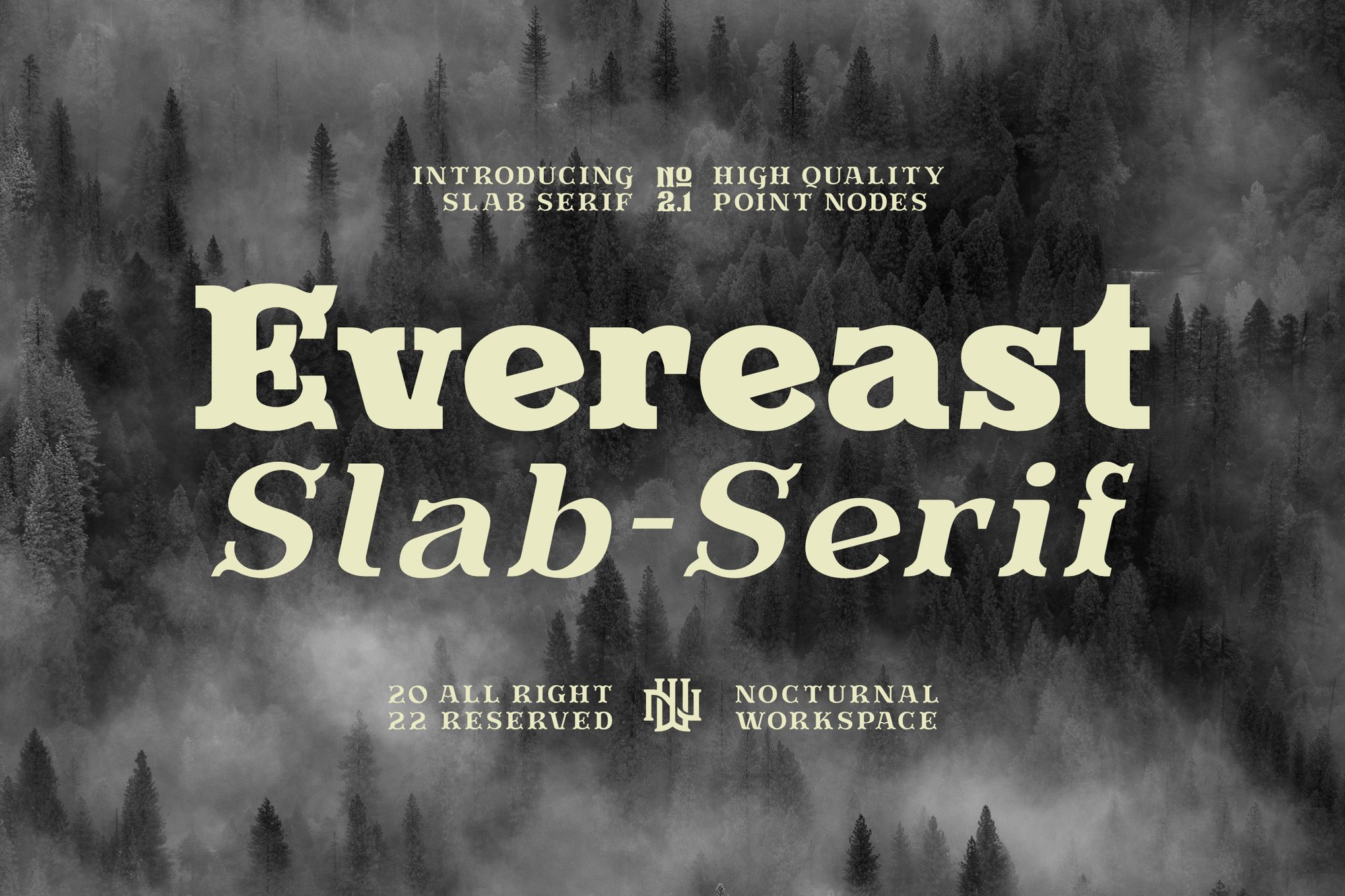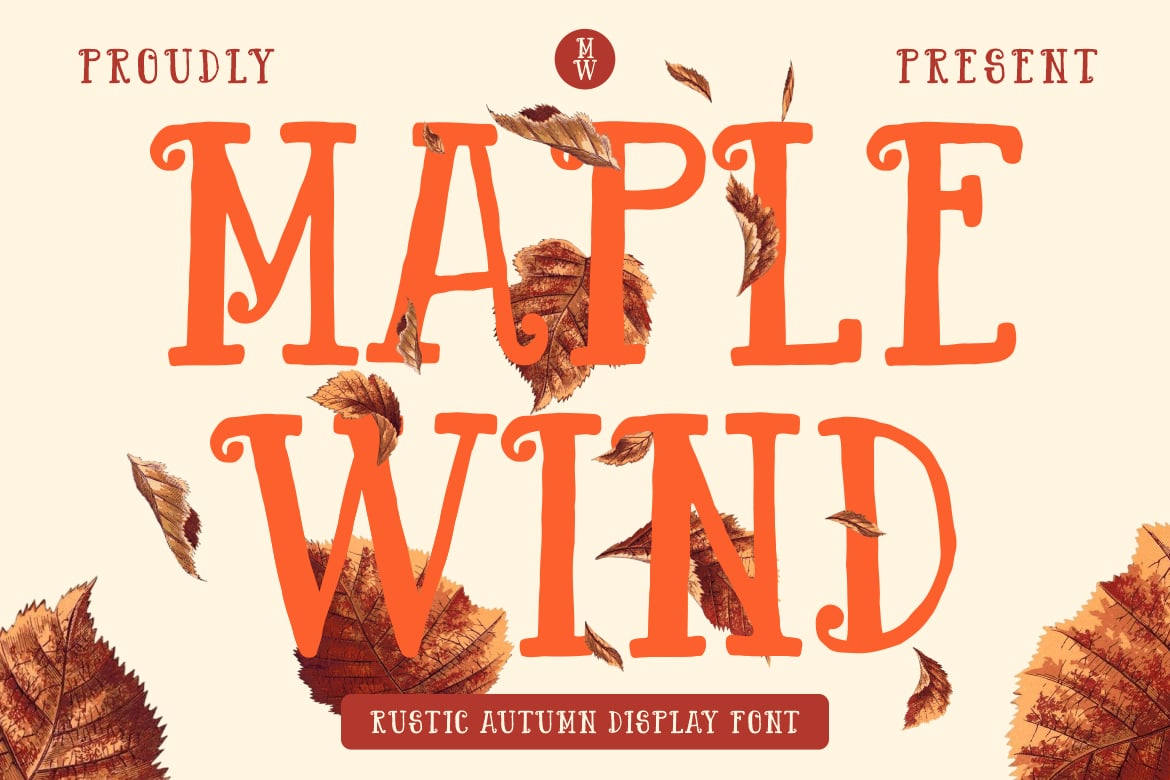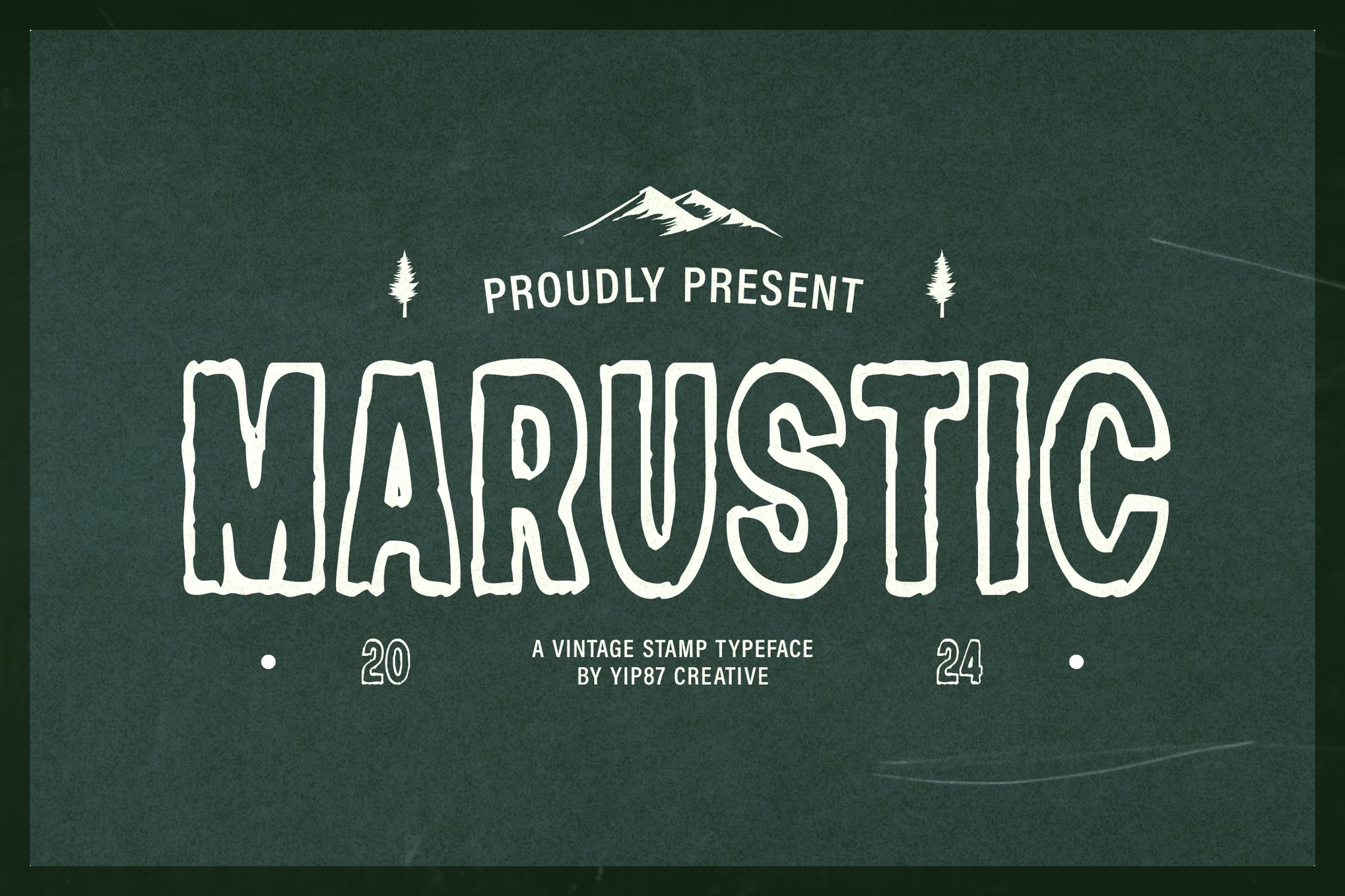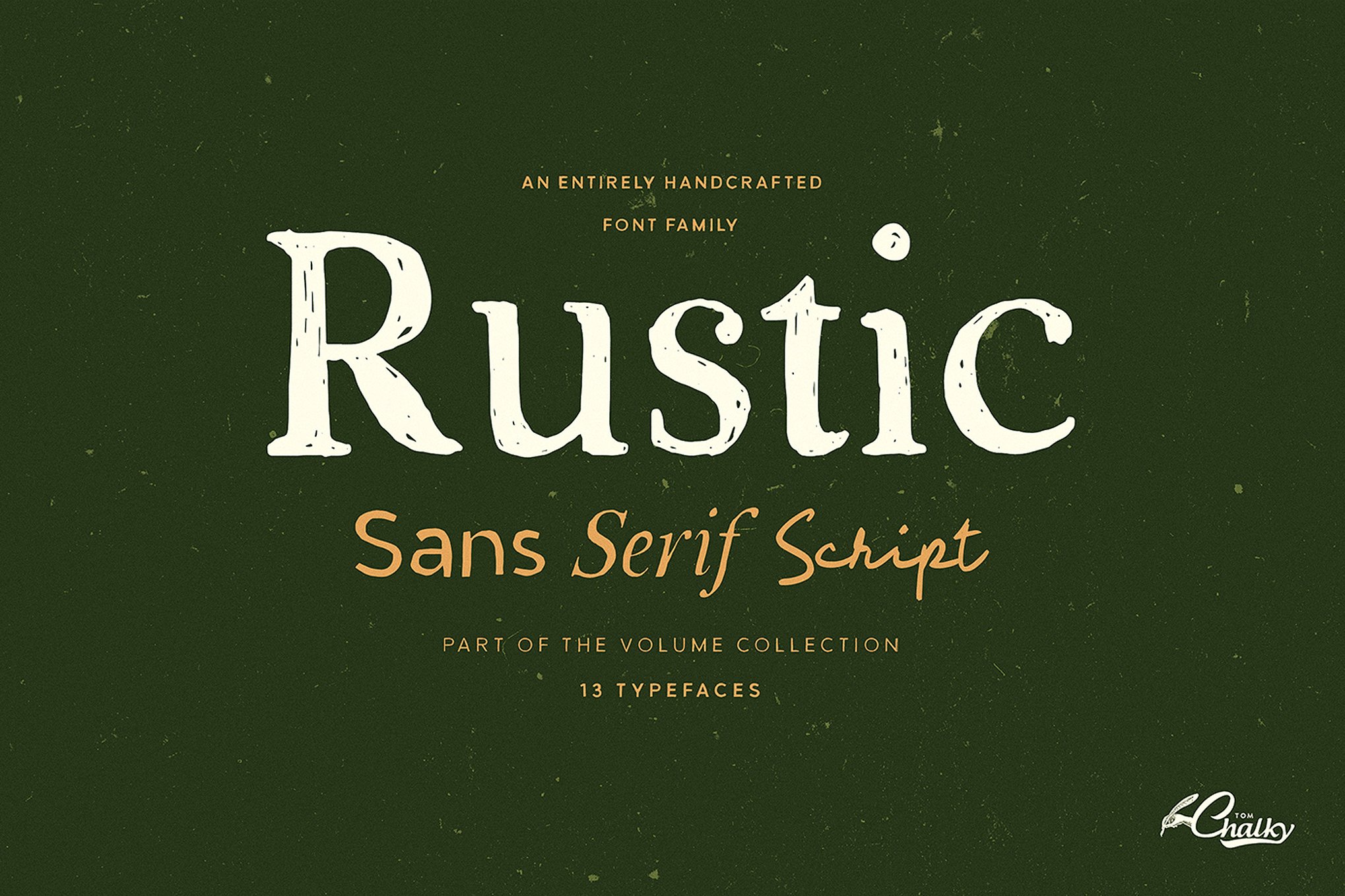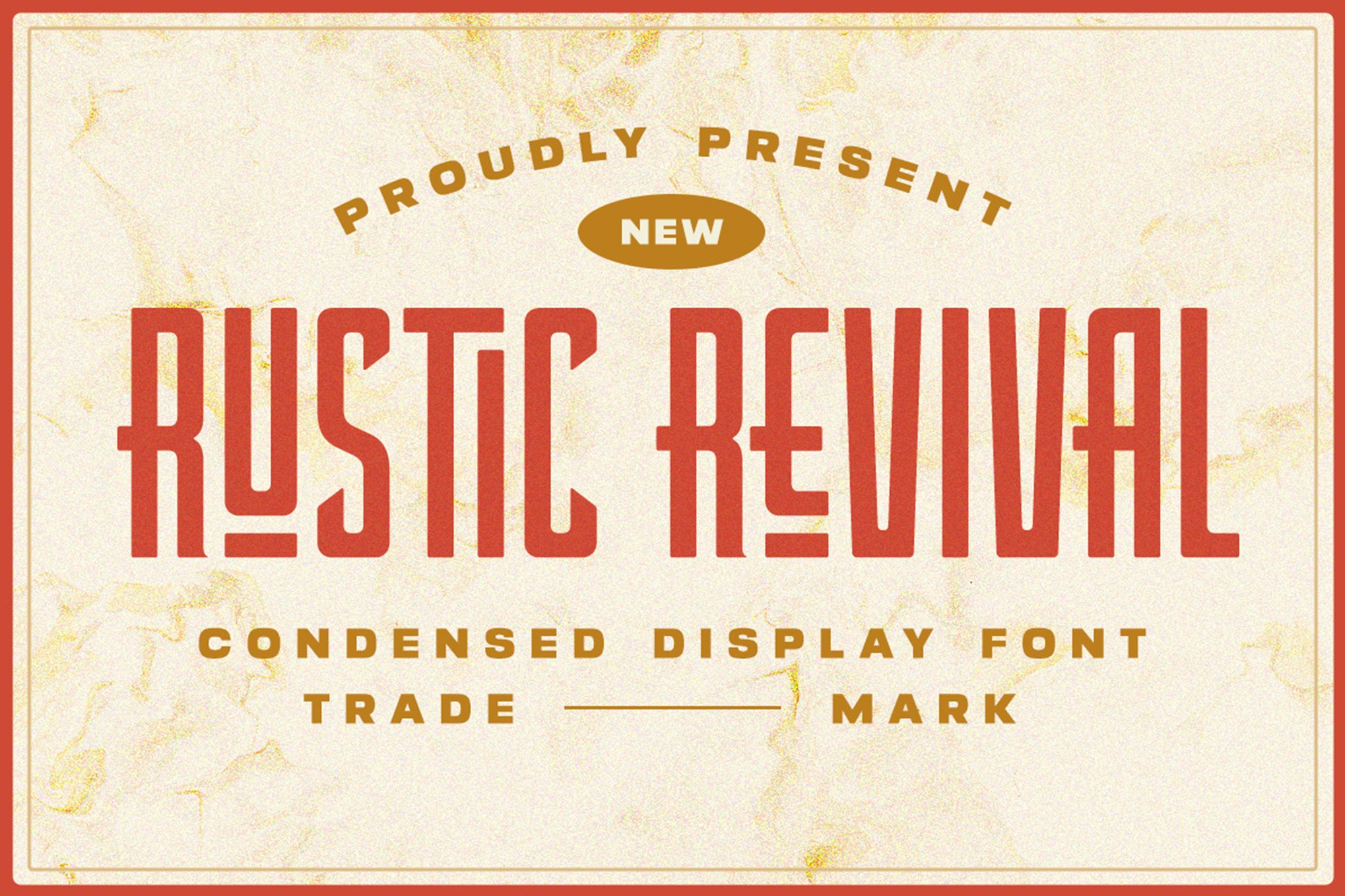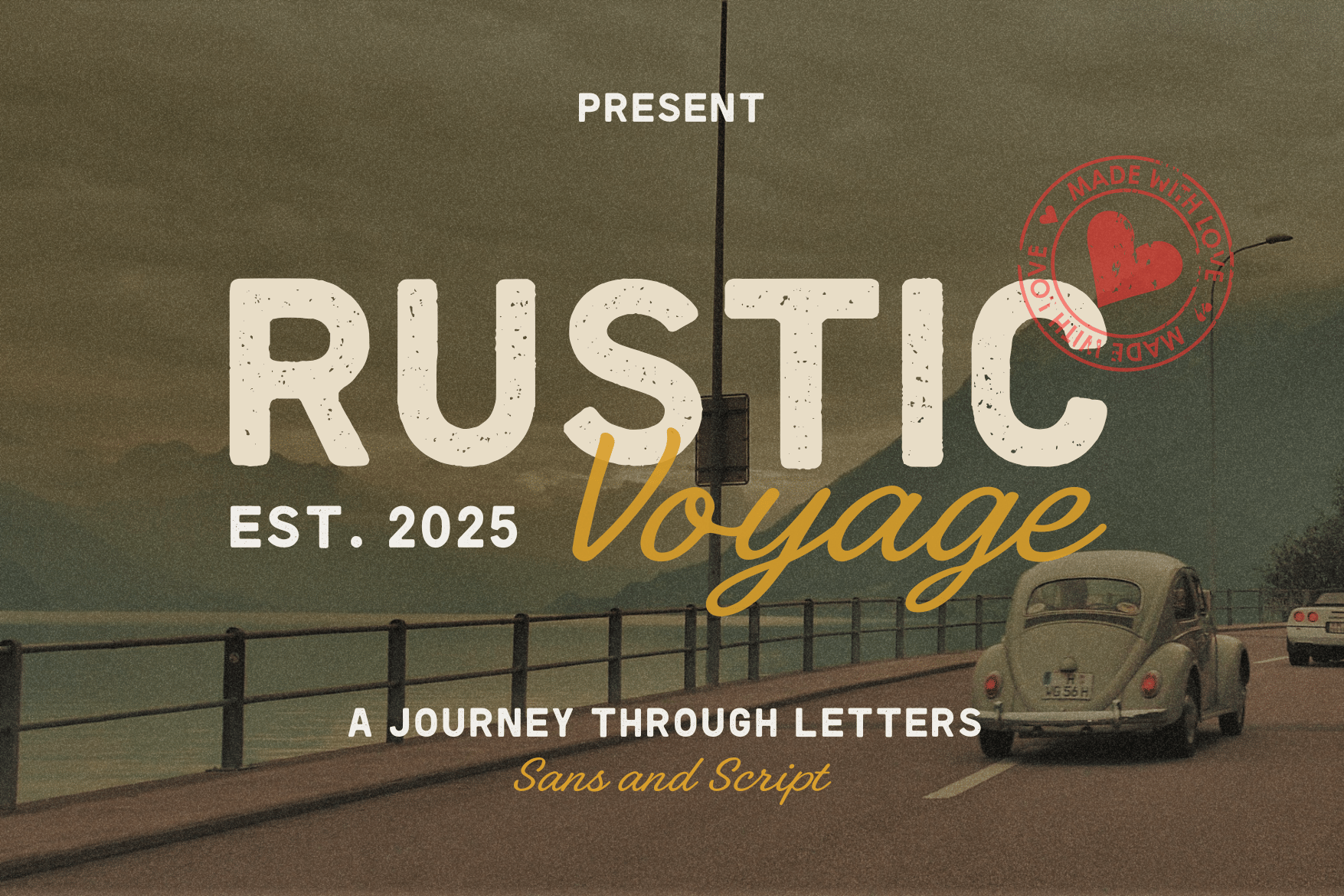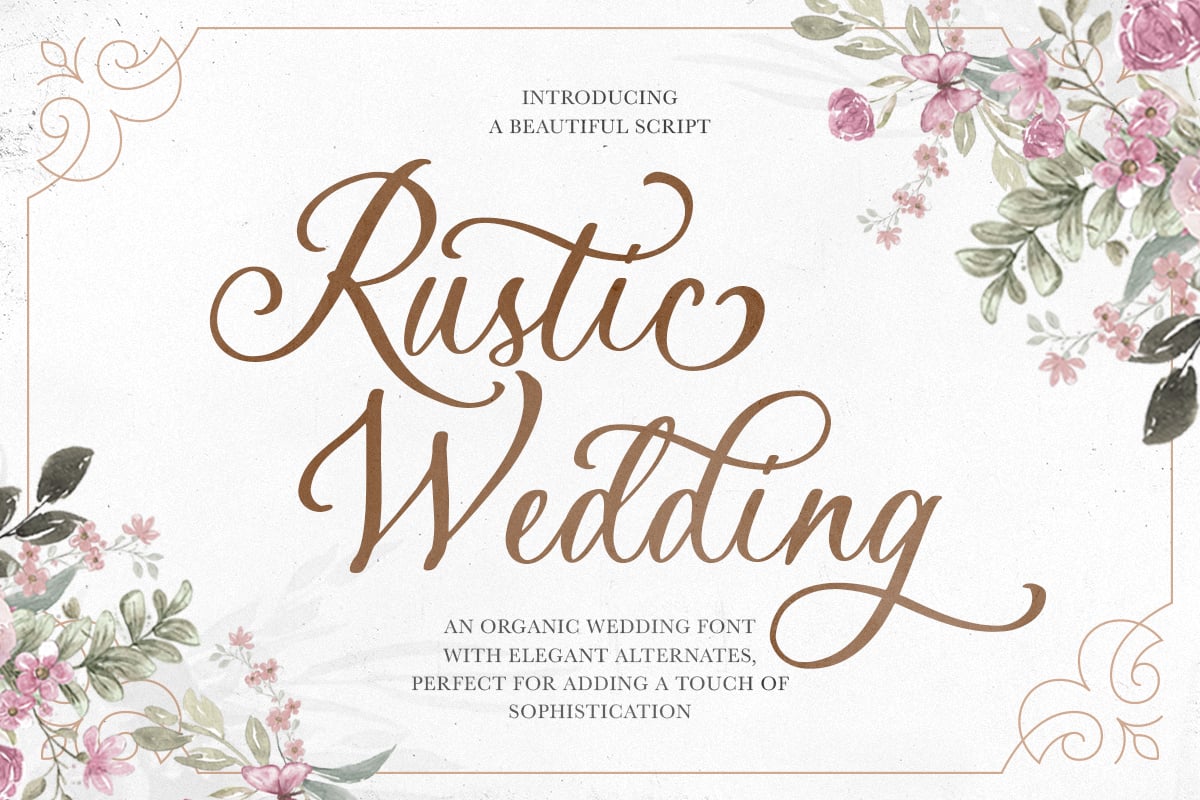
When it comes to creating designs that represent simplicity, nature, and the rugged raw feel, nothing beats the rustic design style. It’s a design trend that never goes out of style.
While rustic design style is most popular in home interior design, it’s also commonly used in graphic design as well, especially in logo, signage, label, and wedding designs.
The font you use for typography is usually the key element of a rustic design. In this post, we look at some of the most beautiful and stylish rustic fonts you can use with your professional design projects.
We handpicked many different types of rustic fonts you can use for everything from logo design to wedding invitations, T-shirts, signage, and more. You’ll also find a few free rustic fonts in the mix as well. Have a look.
Rustic Cuntry - Modern Vintage Serif Font
Rustic Cuntry is a modern vintage serif font that combines rural charm with elegant design. Drawing inspiration from open landscapes and classic Western aesthetics, this typeface offers strength and warmth in its bold structure and expressive serifs. With 19 ligatures, 81 stylistic alternates, and multilingual support, it’s perfect for branding, editorial work, rustic packaging, and creative storytelling.
Maple Wind - Rustic Autumn Display Font
Maple Wind is a rustic font that exudes warmth and charm with its handcrafted look, perfect for seasonal and storytelling themes. Featuring tall, airy letterforms with rounded terminals and ornamental curls, it balances readability with a relaxed, vintage feel. Ideal for logos, branding, and cozy designs, this font supports various creative uses, enhancing compositions with its friendly, authentic style.
Rustic - Handcrafted Font Family
This is a bundle that offers a charming collection of 13 fonts, each designed to blend seamlessly together. Inspired by the ‘Volume’ font family, Rustic fonts are ideal for projects focused on organic or handmade themes. Perfect for adding a personal touch to local and human-centric brands, all fonts are available in OTF format.
Marustic - Vintage Rustic Chalk Outline Font
Marustic is perfect for infusing traditional charm and modern simplicity into your designs. Ideal for headlines, logos, menus, and more, it’s available in OTF/TTF and WOFF formats, making it versatile for both print and digital projects. Enhance your branding, invitations, or social media graphics with Marustic’s timeless appeal.
Rustic Wedding - Organic Script Font
Rustic Wedding exudes charm with its handmade appearance, offering a full range of characters including ligatures, swashes, and alternates. Perfect for wedding invitations, branding, or fashion design, it enhances any project with its elegance. Available in OTF/TTF formats, it supports multiple languages and integrates seamlessly with all design software.
Evereast - Slab Serif Font
Evereast offers a rustic charm perfect for diverse projects like logos, posters, and book covers. Available in eight styles, including Bold and Italic, the font features contextual ligatures and multilingual support. With OTF and TTF files.
Rustic Voyage - Sans & Script Font Duo
Rustic Voyage is a charming font duo combining a bold, distressed sans with a smooth retro script. Inspired by vintage travel posters, it blends strength and elegance, offering a nostalgic yet modern vibe. Perfect for bold headlines and warm taglines, it includes uppercase, lowercase, numbers, and punctuation, plus multilingual support, enhancing logos, posters, and more.
Rustic Revival - Condensed Font
Rustic Revival combines classic charm with casual flair, making it ideal for creating striking posters, banners, and headlines. Featuring ligatures, alternates, and multilingual support, this font enhances text flow and visual appeal. It’s best used in programs with OpenType features, such as Adobe apps, to fully access its range of glyphs.